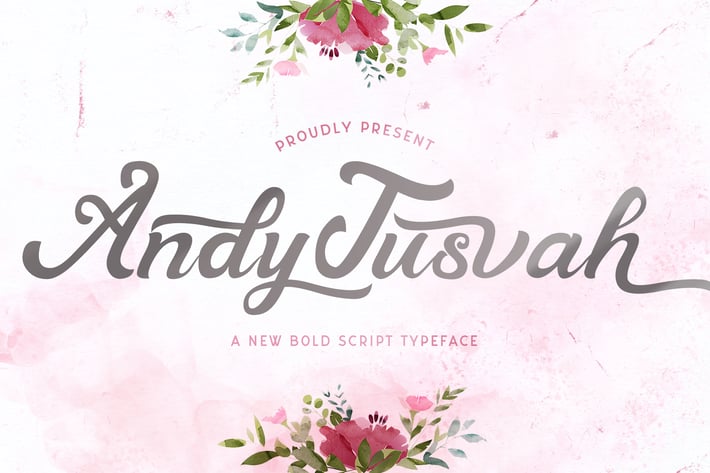
Andy Tusvah - Bold Script Font
Introducing Andy Tusvah - Bold Script Font
Andy Tusvah is a flowing and beautiful handwritten bold script font, created with the help of a brush pen. Get inspired by its unique and beautiful style and add it to your favorite designs!